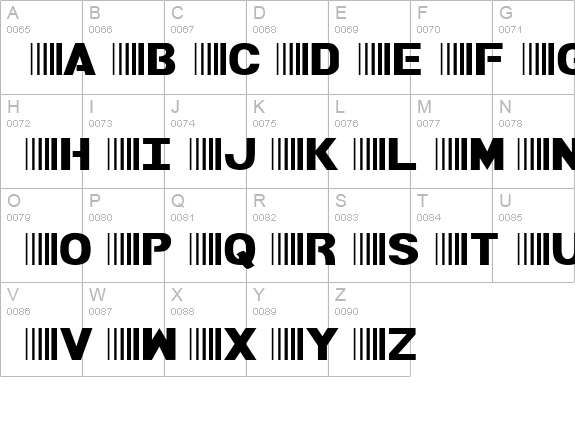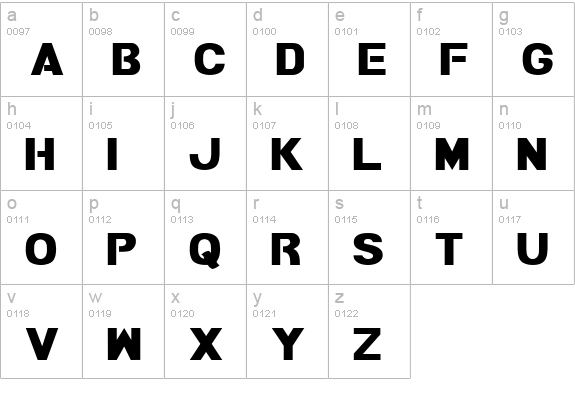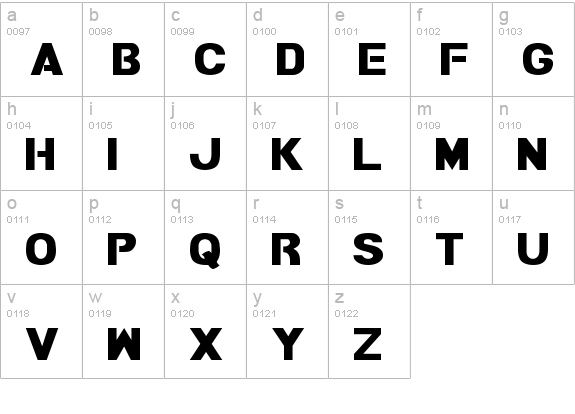
Bamf Font Details
Introducing Bamf font, a versatile and modern typeface that will add a touch of elegance to your designs. With its sleek lines and unique style, Bamf font is perfect for a wide range of projects, from branding to editorial design. This font exudes sophistication and creativity, making it a standout choice for any designer looking to make a statement. What's more, Bamf font is available for free download at FontsMarket.com. This means you can easily access this premium font without any cost, making it a valuable addition to your font collection. Don't miss out on the opportunity to elevate your designs with the stunning Bamf font – download it today and let your creativity shine!